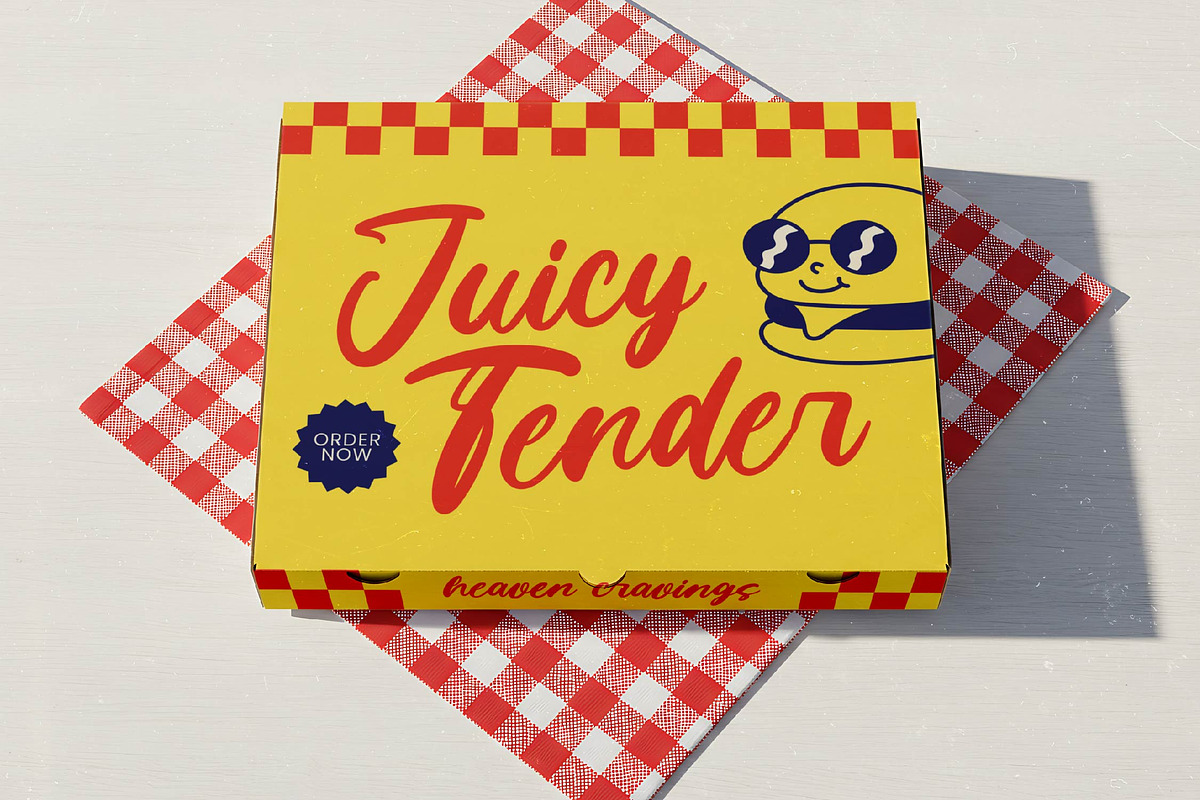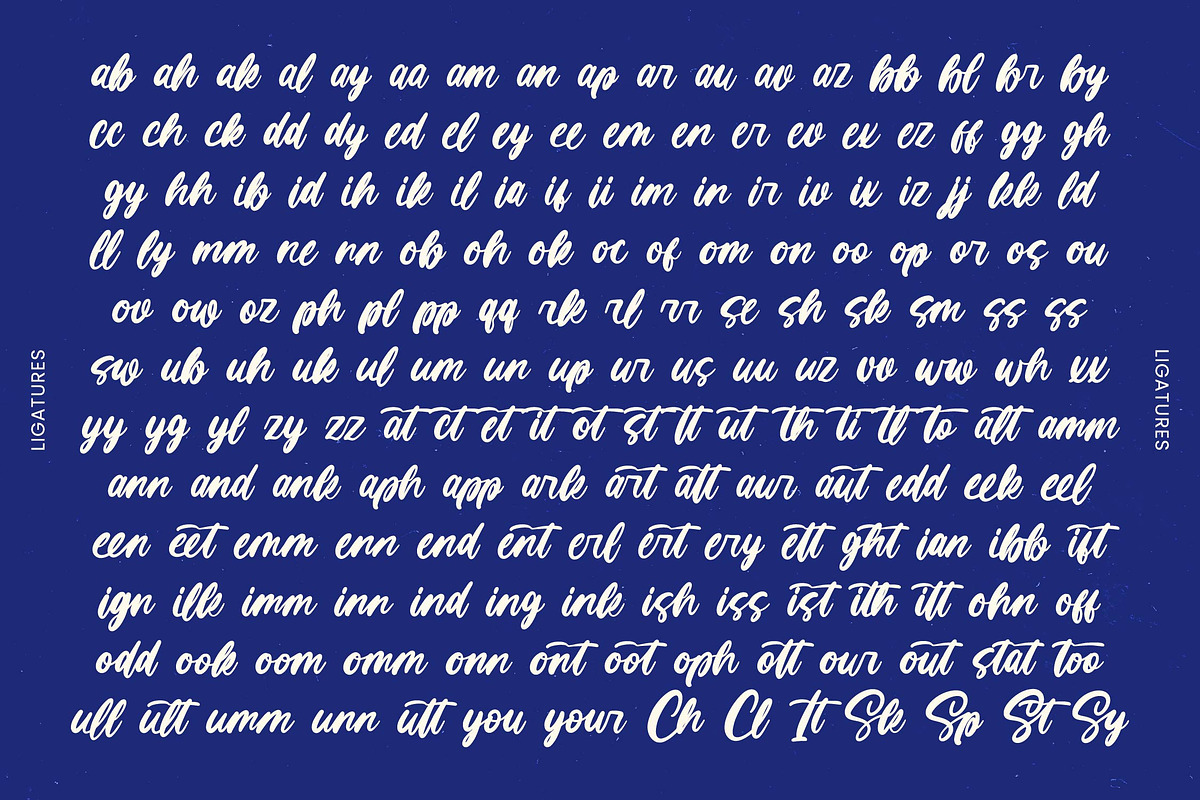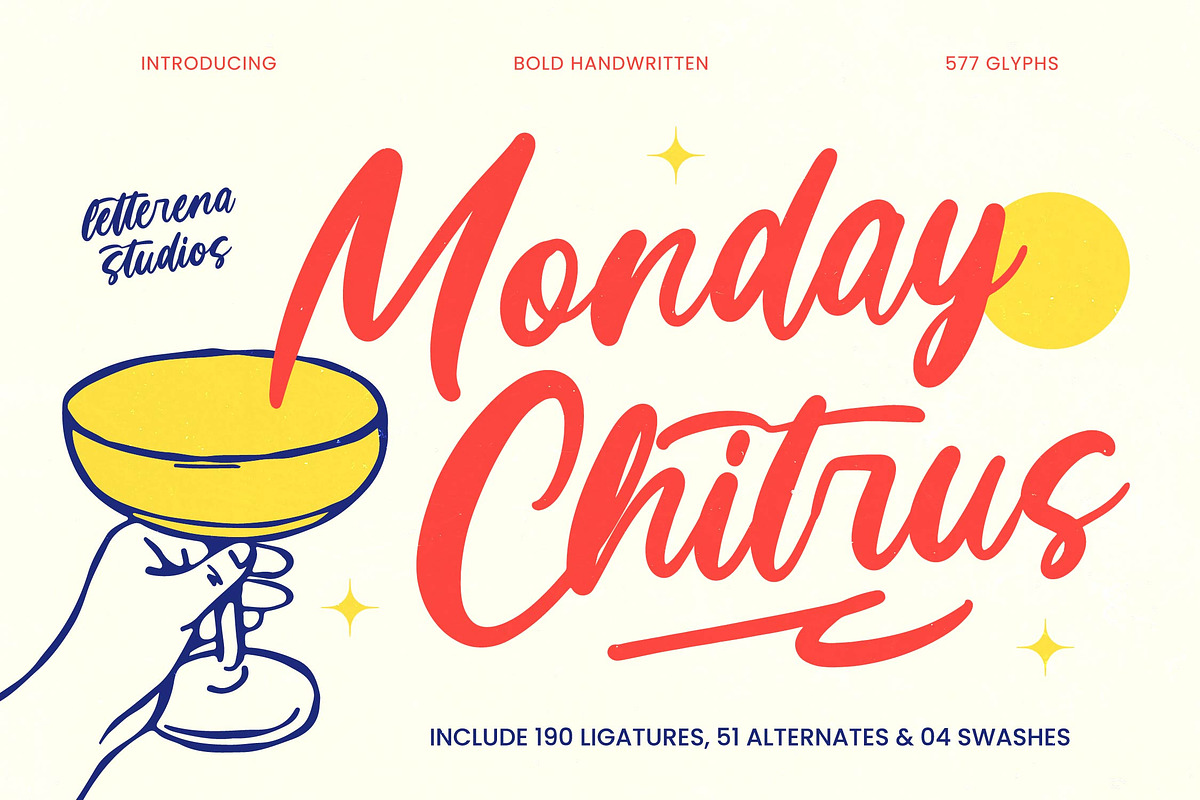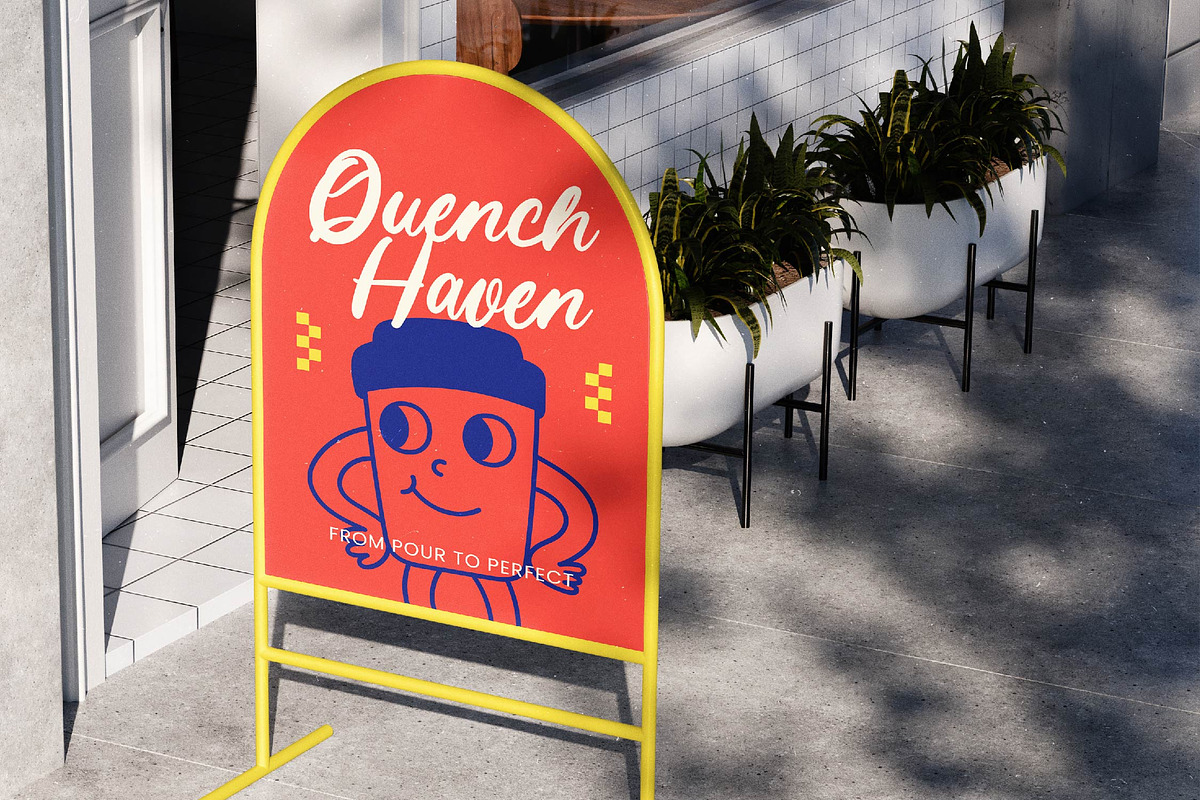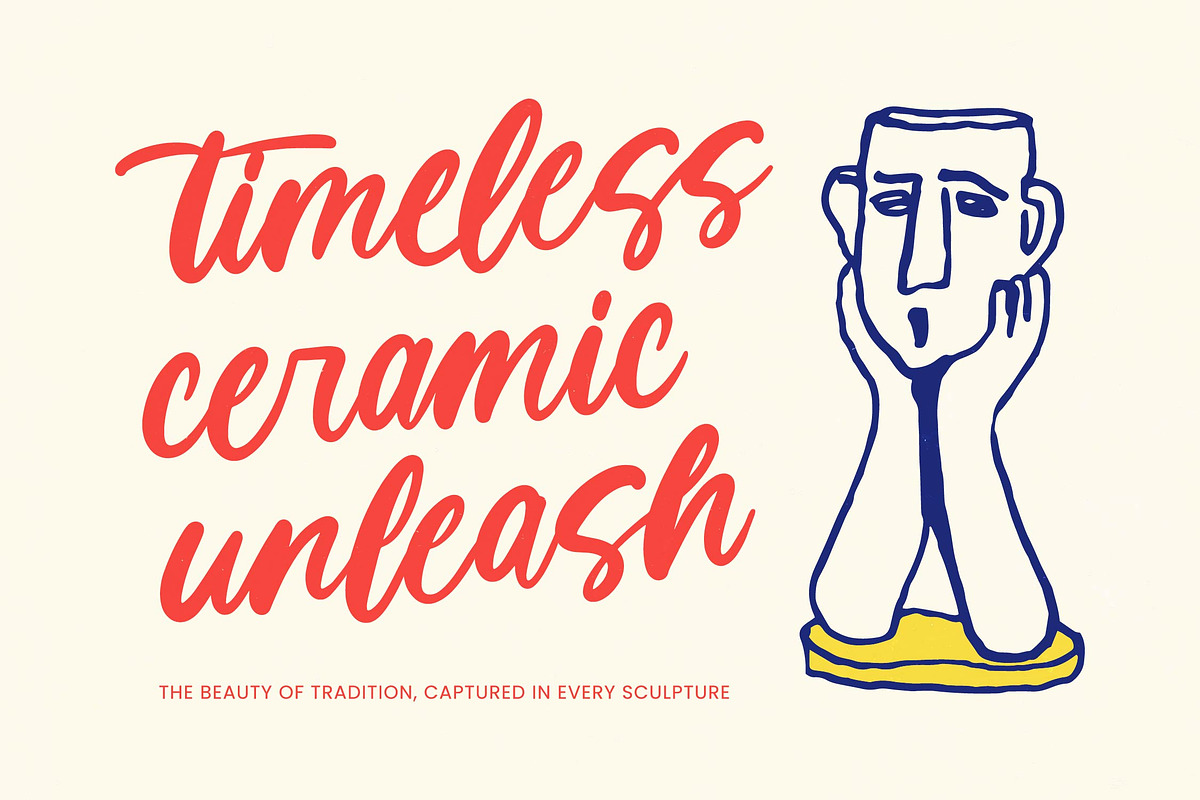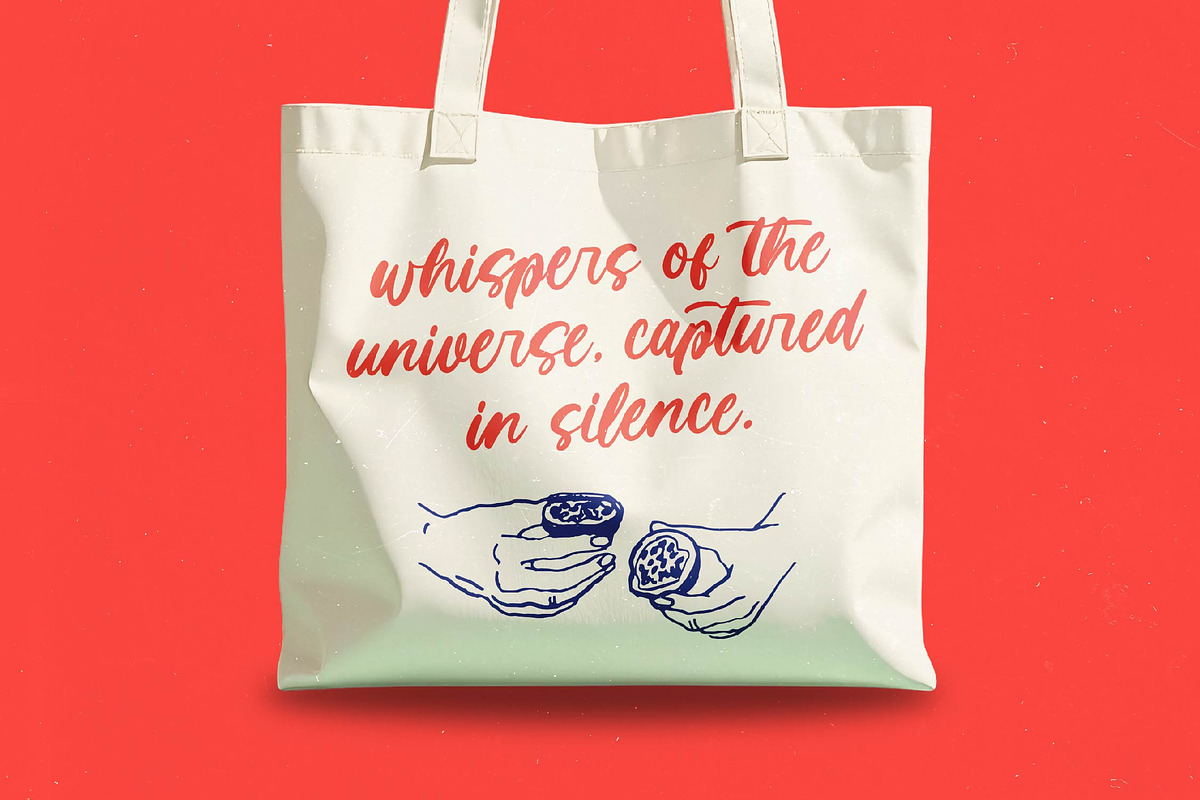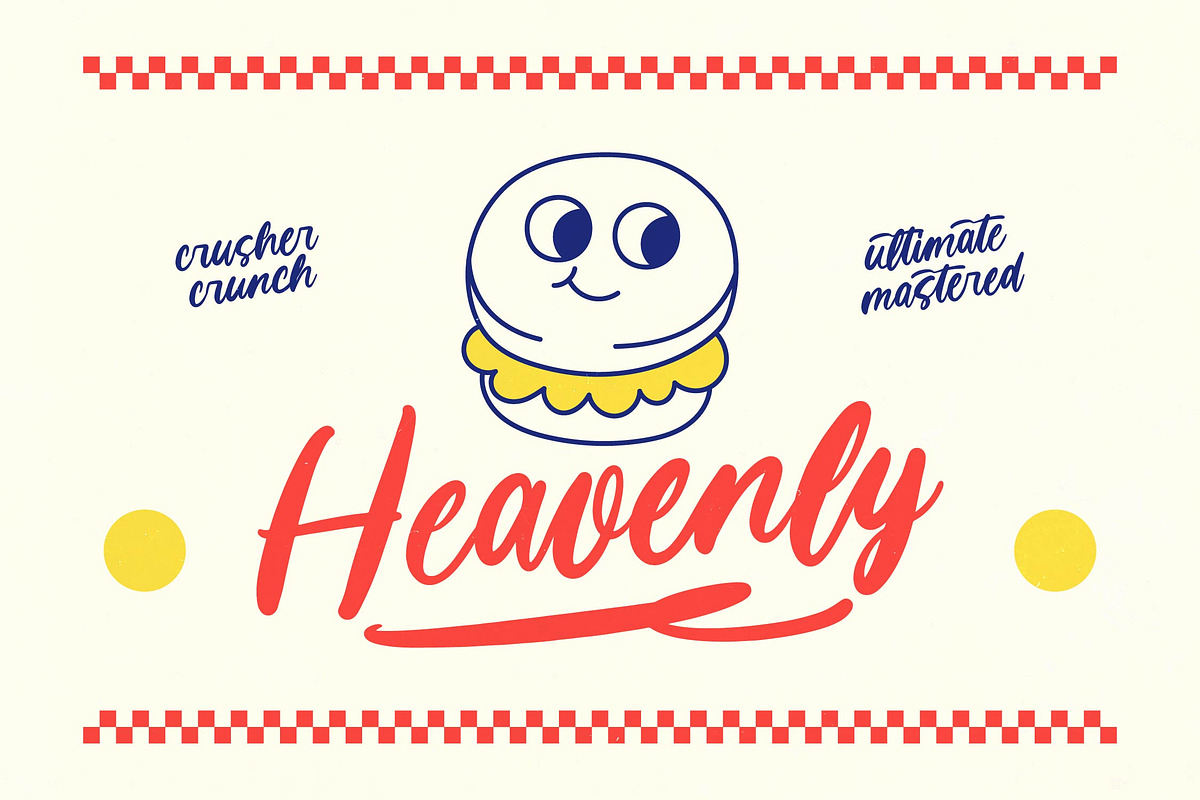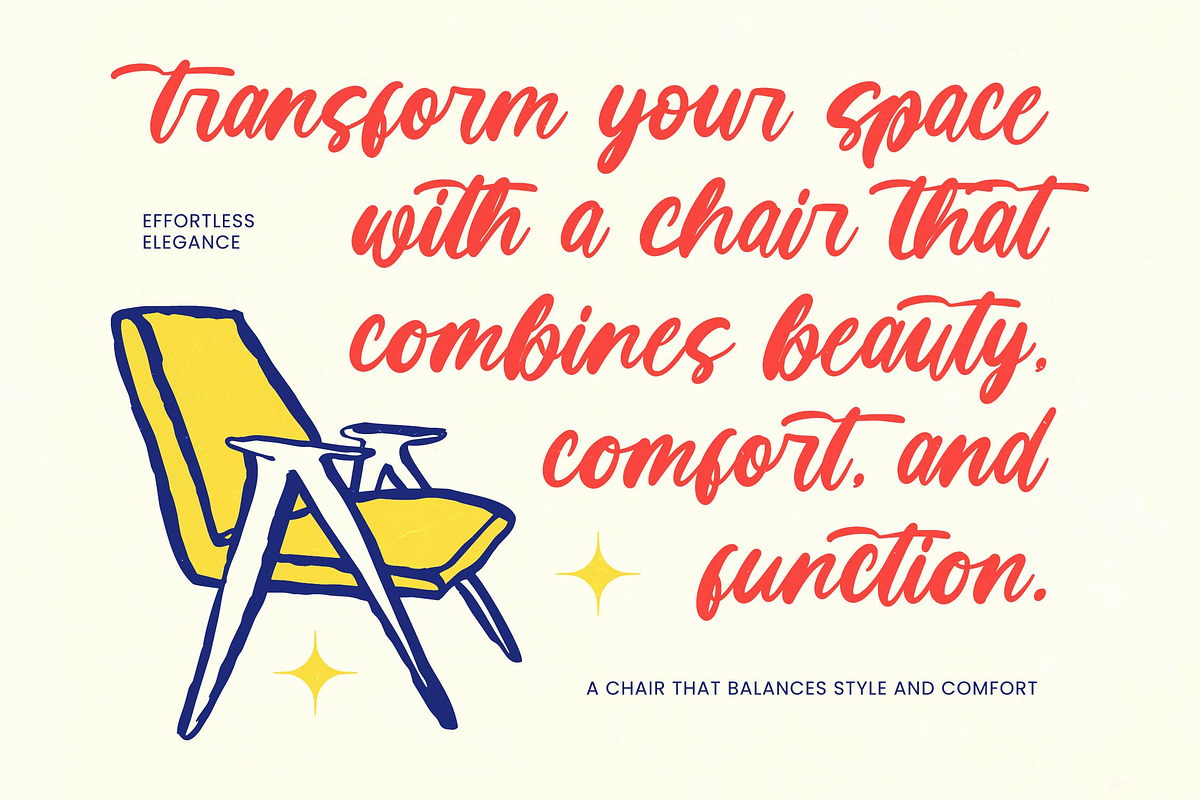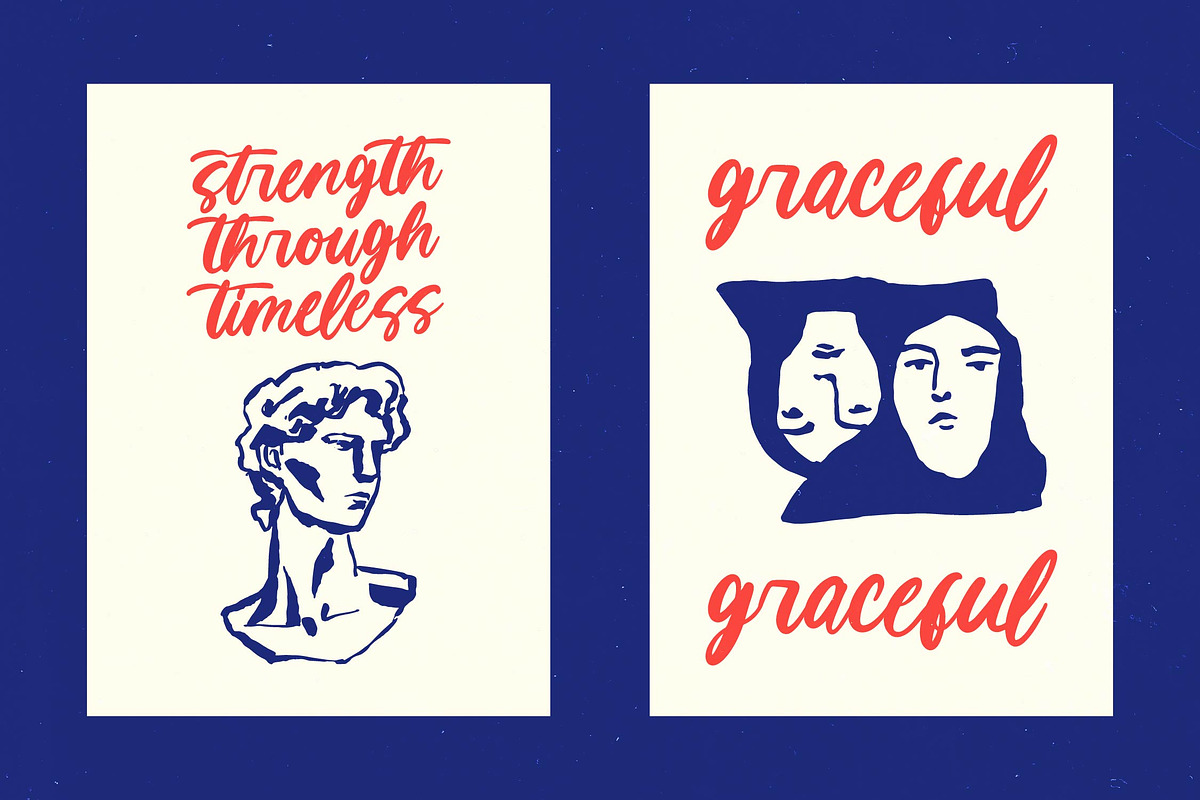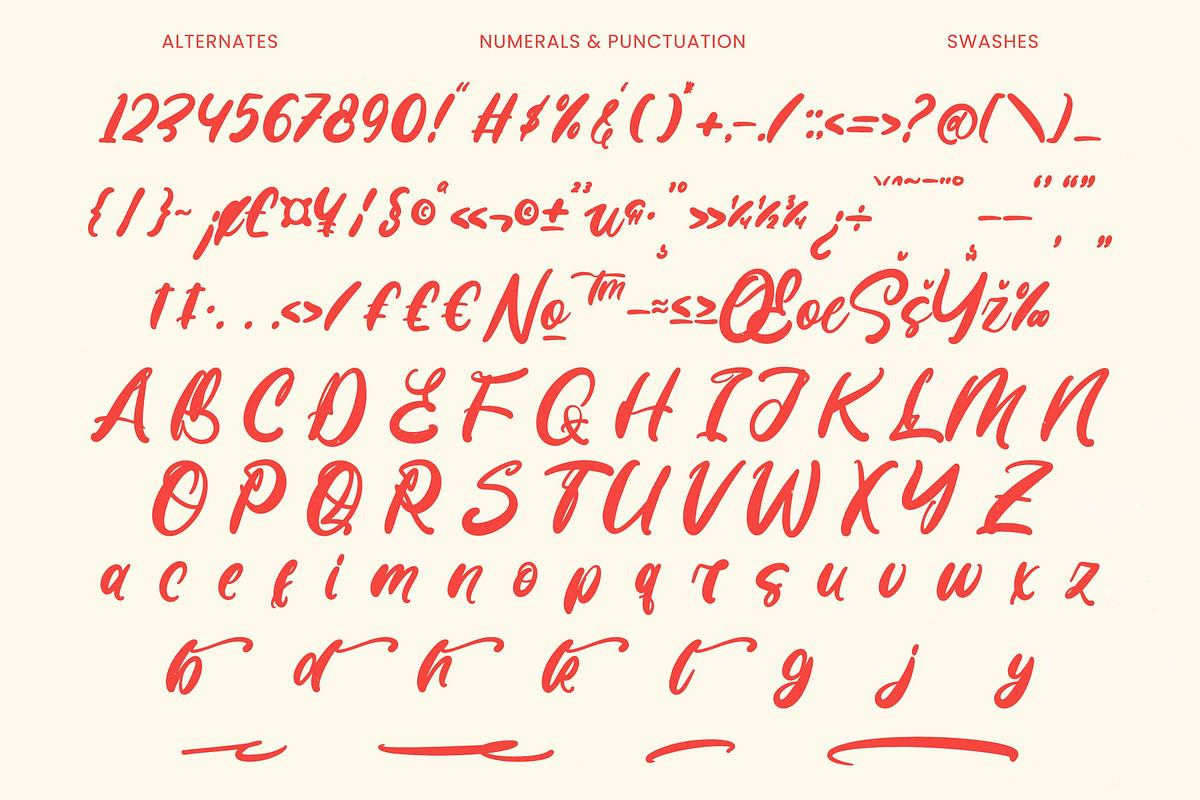
Monday Chitrus Bold Handwritten
Monday Chitrus - Bold Handwritten , Capture attention with undeniable charm and vibrant personality. Monday Chitrus - Bold Handwritten offers a refreshingly authentic script that instantly infuses any project with warmth and energy. Its bold handwritten style exudes a playful yet confident presence, making it ideal for designs demanding to be noticed and remembered. This font is crafted to bring an engaging, human touch, ensuring every message resonates with genuine appeal.
Unleash unparalleled creative freedom with a wealth of typographic possibilities. Beyond its inherent beauty, Monday Chitrus - Bold Handwritten boasts an impressive suite of features: 577 glyphs, 190 ligatures, 51 alternates, and 04 swashes. These extensive stylistic sets empower designers to achieve truly dynamic and customized layouts, replicating the spontaneity of genuine hand-lettering. Elevate your typography with its expressive and fluid strokes.
Expand your brand's reach and connect with diverse audiences effortlessly. With its extensive multilingual support, Monday Chitrus - Bold Handwritten adapts seamlessly across global markets, making it incredibly versatile for international projects. This crucial feature ensures your message maintains its intended warmth and bold handwritten appeal, fostering a broader connection and enhancing your global brand presence with uncompromised style.
Perfectly suited for an array of impactful design applications, Monday Chitrus - Bold Handwritten excels in situations demanding a distinctive and lively voice. It's ideal for branding, eye-catching packaging, engaging social media graphics, compelling editorial layouts, and vibrant merchandise. Choose this font to inject a spirited, memorable character into your designs, ensuring your creations stand out with unmistakable charm and professional polish.